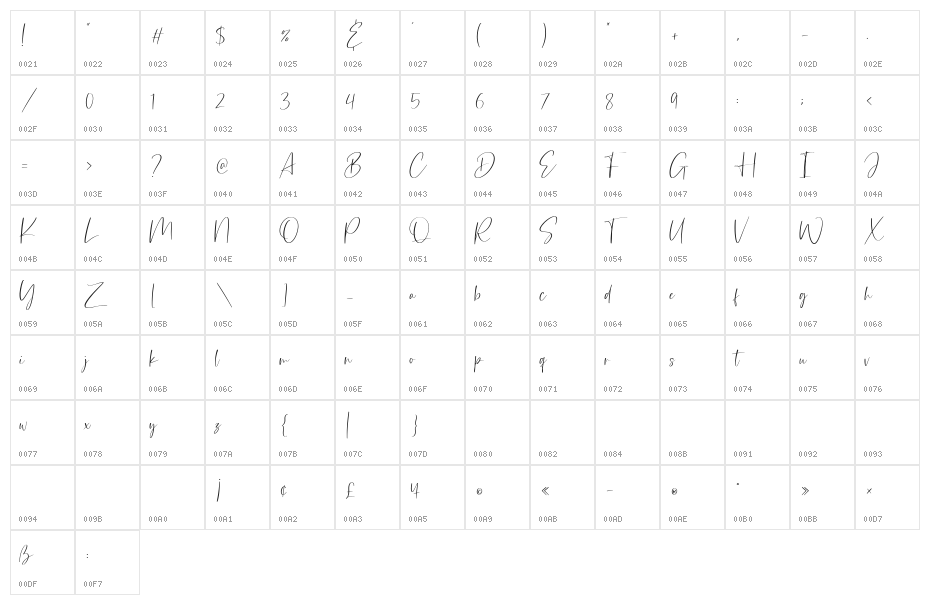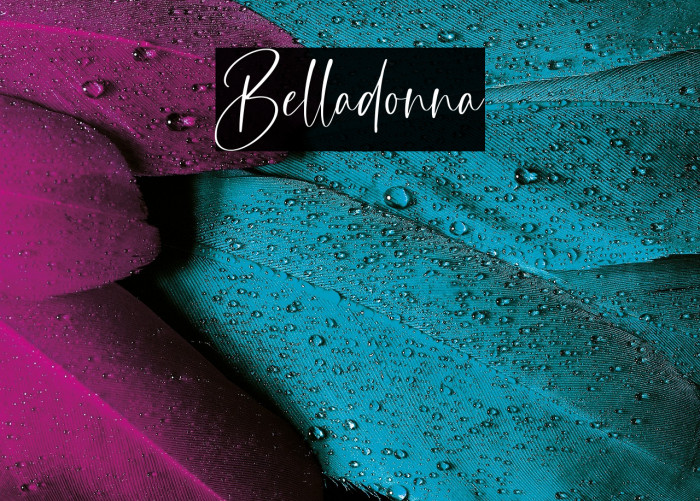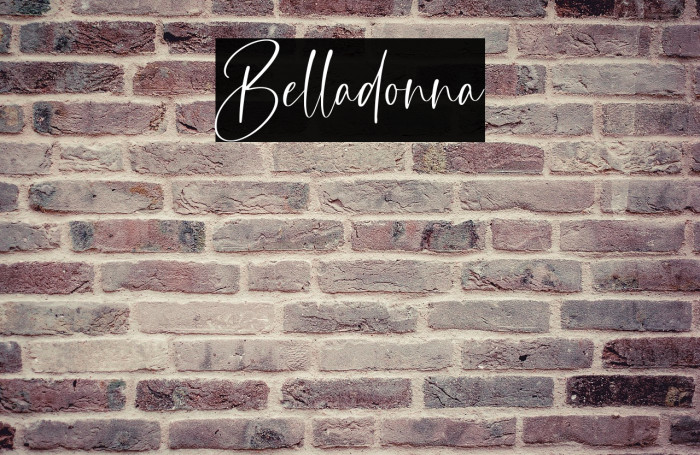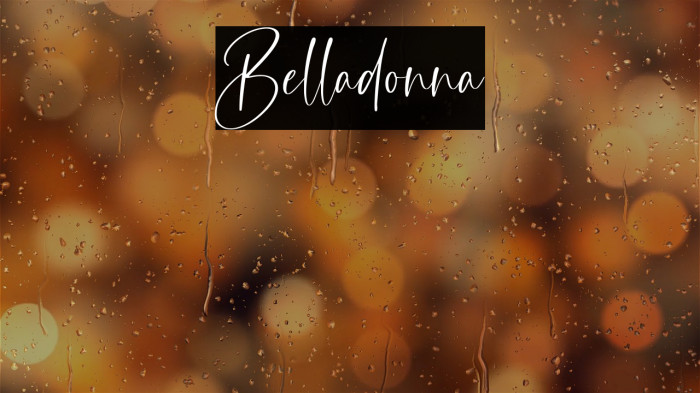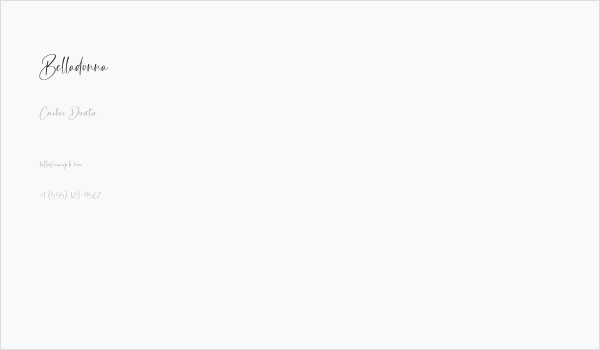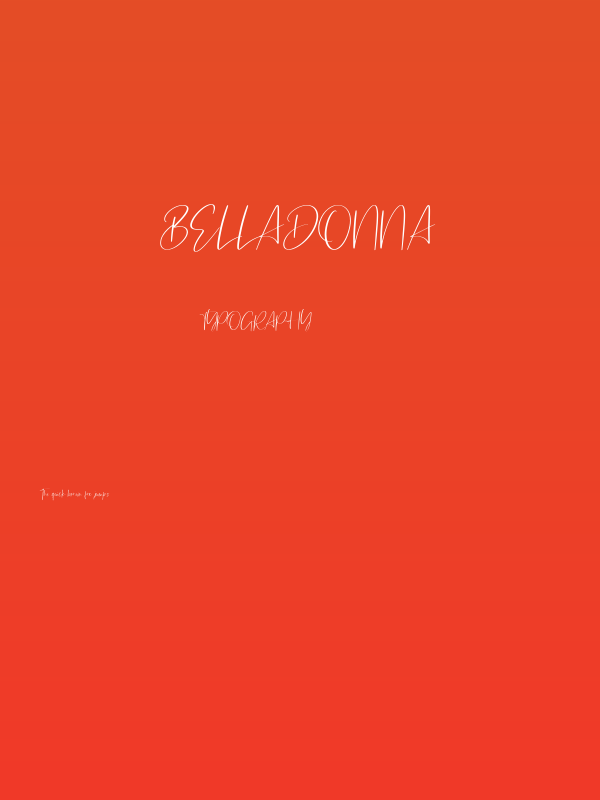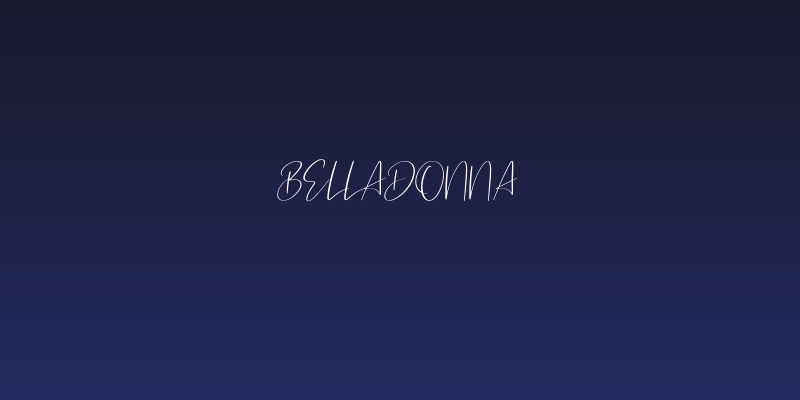
Belladonna Font
| Caso d'uso | Logos, Invitations, Artistic projects |
| Progetti proposti | Ideal for wedding invitations, greeting cards, personal branding, and artistic projects. |